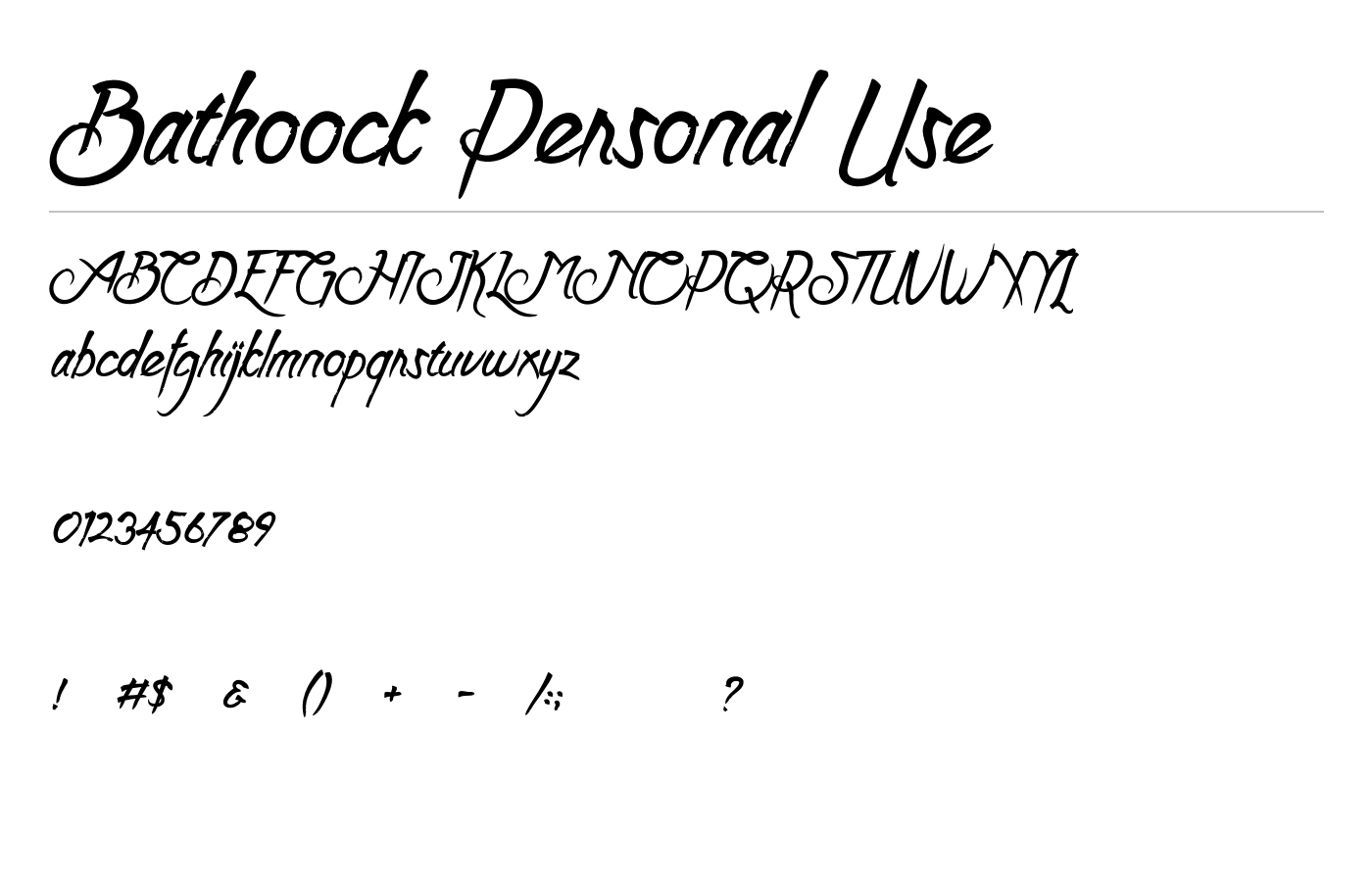
Bathoock Personal Use is an elegant script font with a lively, handwritten feel, featuring thin, flowing strokes and charming loops that add personality and grace. It works beautifully for creative branding, invitations, and decorative headings where a personal, artistic touch is desired. This font lends a sophisticated yet approachable vibe, making it ideal for projects that want to convey warmth and style.
Bathoock Personal Use Font
About Bathoock Personal Use Font
| Font family | Bathoock Personal Use Font |
| Designer | Vaca Tama |